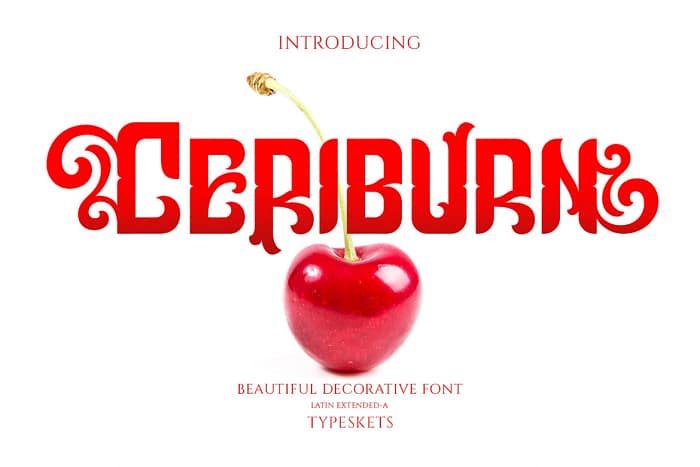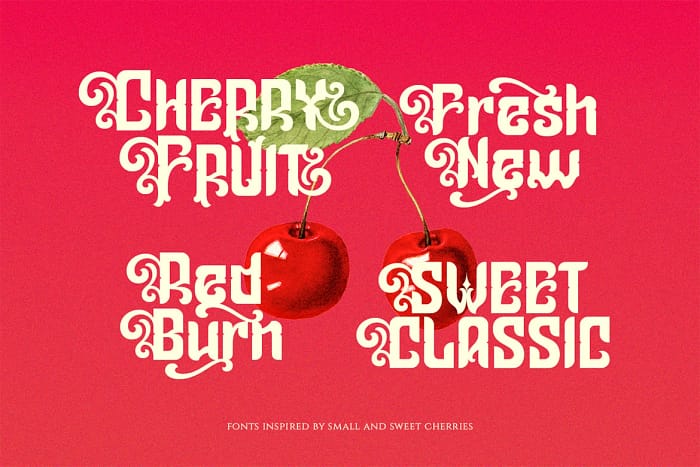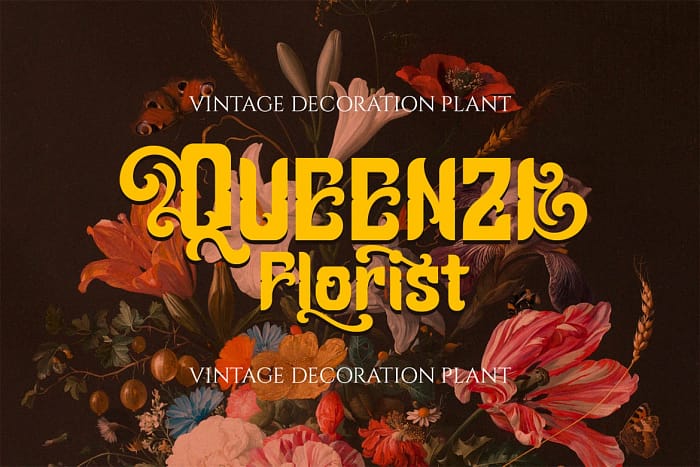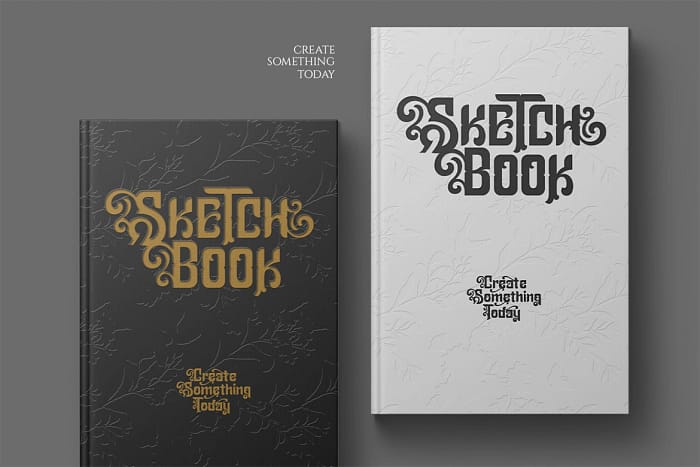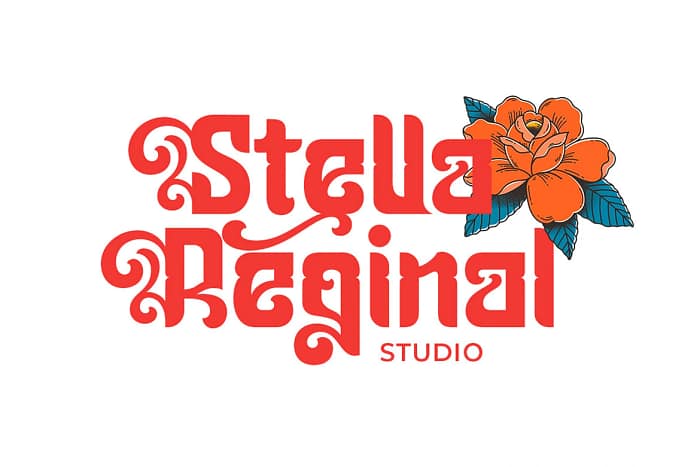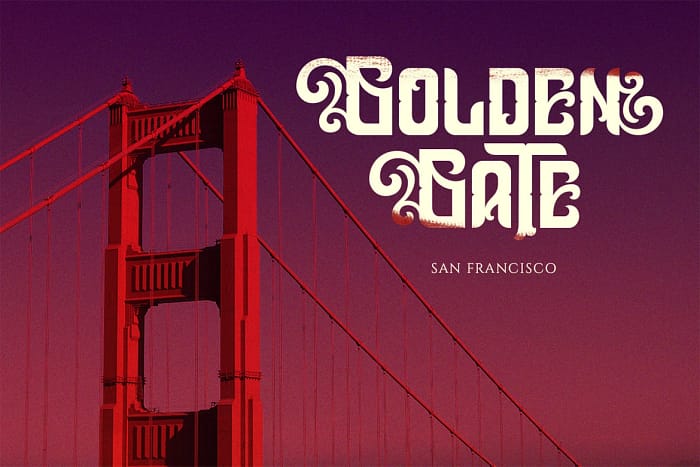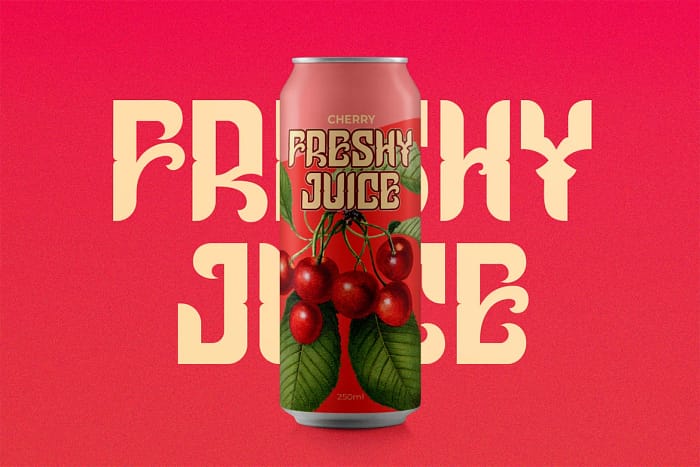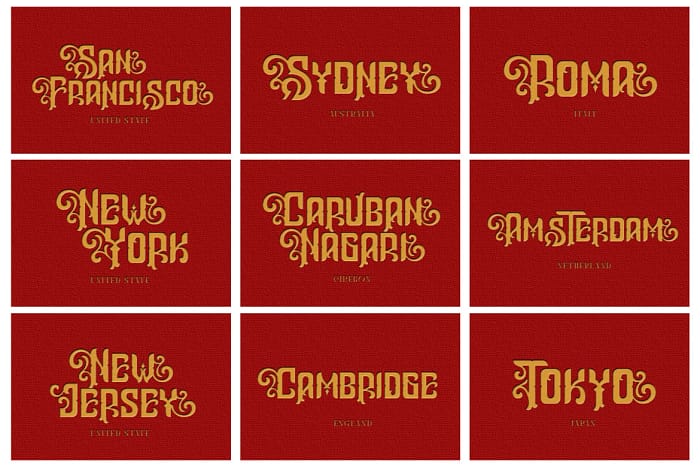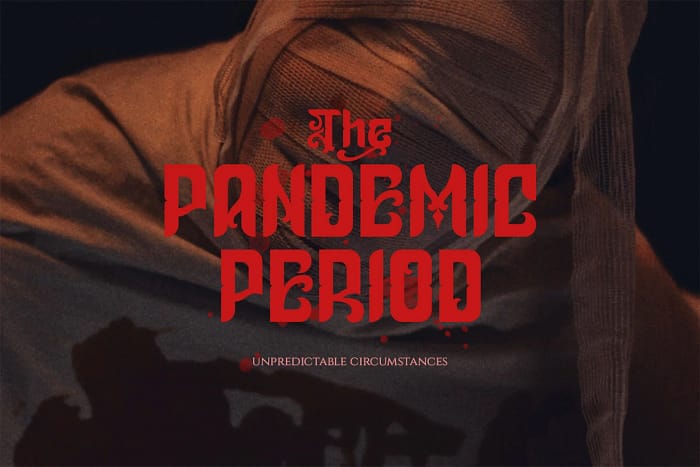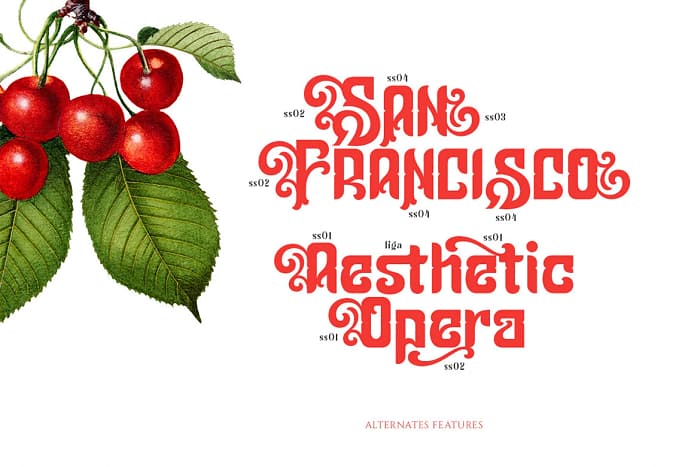
Ceriburn is inspired by the sweetness and richness of cherries. It easily evokes impressions of nature, elegance, and romanticism. You can use this stunning decorative font for logos, packaging, business cards, crafts, books, labels, headlines, invitations, print templates, and a multitude of other design ideas!